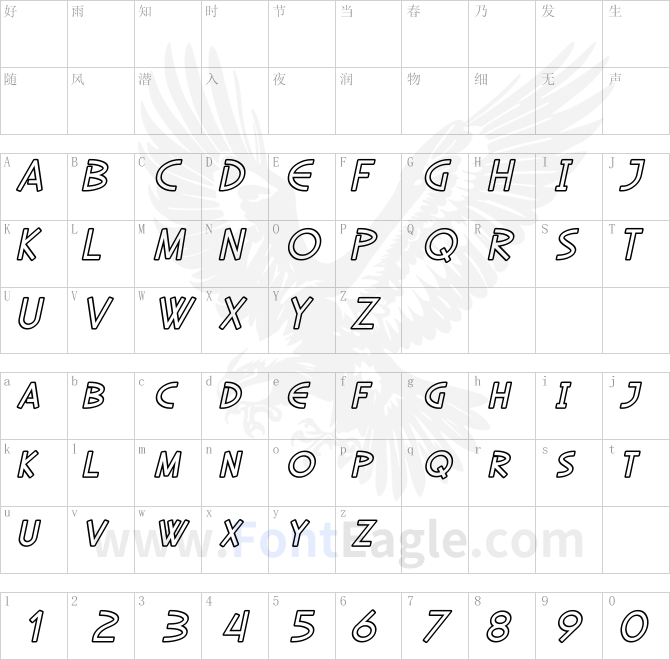
- Font name:SF Diego Sans Outline
- Font Subfamily ID:ShyFontsTypeFoundry: SF Diego Sans Outline Oblique: 2001
- Font Full Name:SF Diego Sans Outline Oblique
- Postscript:SFDiegoSansOutline-Oblique